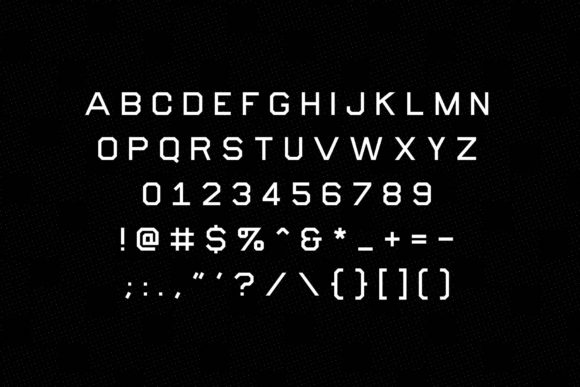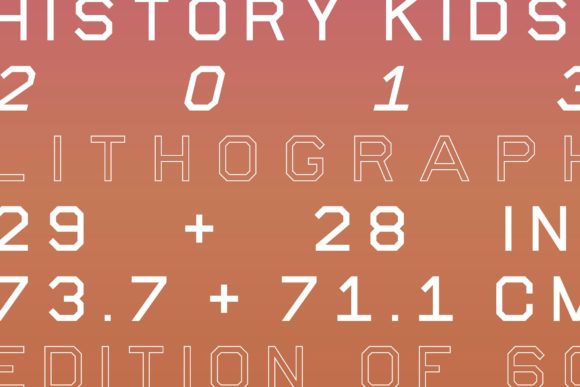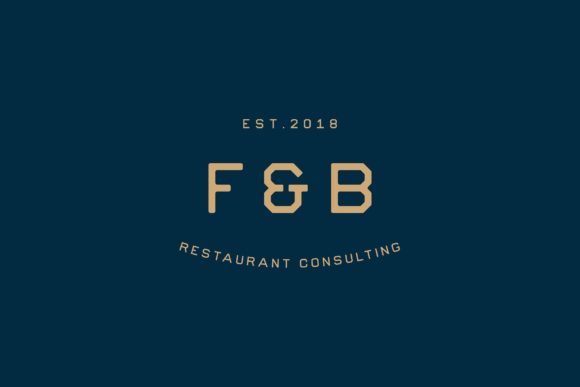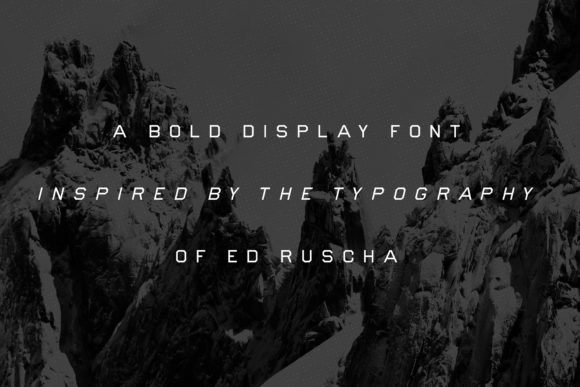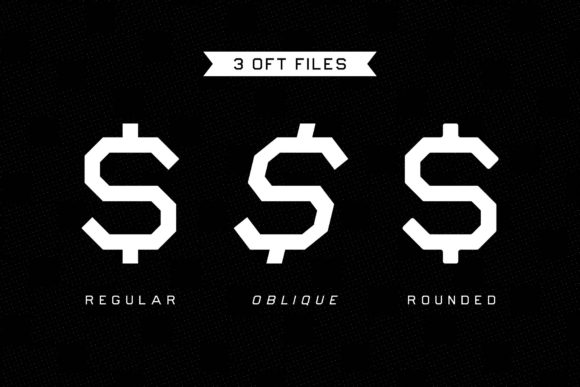
The Perfect Typography Match for Your Creative Projects
Have you ever been working on a design project, pouring over ideas and concepts, only to have it all come together in a moment of pure creative bliss? That’s exactly what inspired the Bliss Bucket Family Font, a collection of three sans serif display fonts that capture the essence of industrial cool and effortless style.
The Bliss Bucket Family Font is more than just a typography solution – it’s a versatile tool that can be used across a range of applications, from logos and branding to magazine editorial headlines and digital web banners. With its oblique and rounded versions, you can add emphasis and depth to your designs, making it a valuable addition to any designer’s toolkit.
Bliss Bucket Family Font Key Features
- Font Family: Bliss Bucket Family Font is a sans-serif font family consisting of 12 styles, ranging from Light to Bold.
- Unique Characteristics: The Bliss Bucket Family Font features a modern and clean design with rounded edges, making it suitable for various applications, including logos, signage, and body text.
Bliss Bucket Family Font Review
Overall, I was excited to dive into the Bliss Bucket Family Font. This font has a lot of charm and personality, which is perfect for those looking to add a touch of whimsy to their designs. ✨ Here are some of the things that work well:
- Unique and playful character designs
- Extensive character set, including numbers, punctuation, and special characters
- Highly customizable, with a range of styles and weights to choose from
However, as with any font, there are some limitations to consider. ⚠️ These include:
- May not be suitable for formal or professional designs
- Can be difficult to read at very small sizes
- Some characters may not be perfectly compatible with certain operating systems or software
Overall, I think the Bliss Bucket Family Font is a great choice for designers who want to add some personality to their projects. While it may not be the best fit for every design, it’s definitely worth considering for those looking to add a touch of whimsy and fun.
- Use the font for titles and headings to add a touch of elegance.